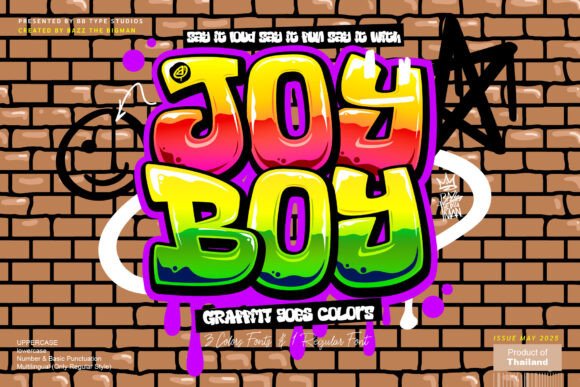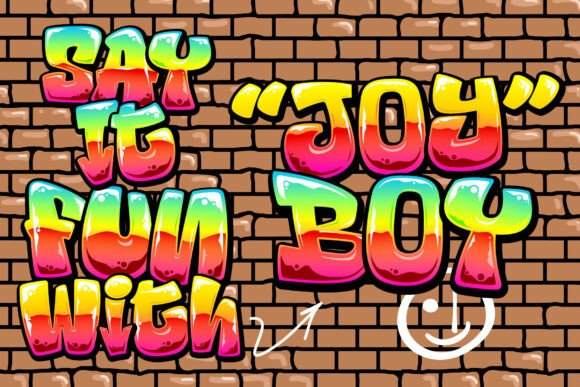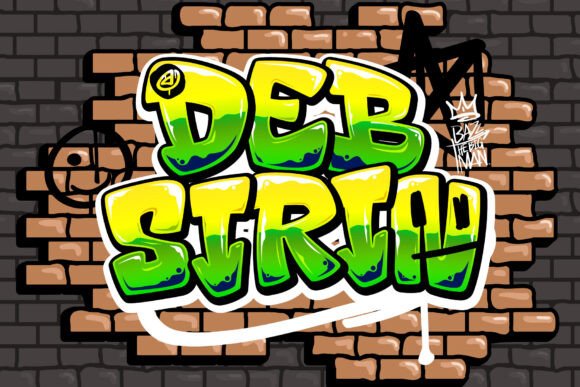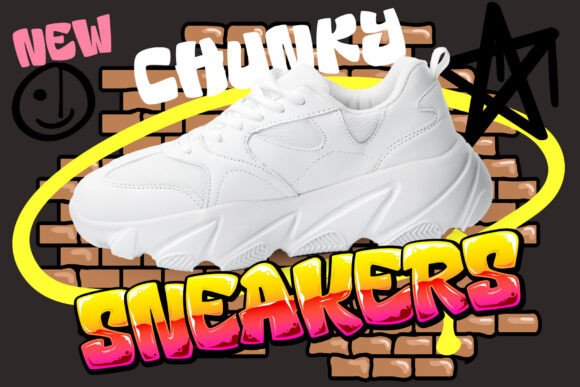
Joy Boy Font: Graffiti Typography for Bold Logo Design
About the Joy Boy Font
Crafted with precision, the Joy Boy Font is ready to bring your ideas to life. Unleash your vibrant creativity through Joy Boy, a daring, street-chic color font that exudes raw attitude. Reflective of graffiti bravura, every letter speaks volume, exploding with riotous hues to instill a new level of urban dynamism. Perfectly suited for logos, posters, music merchandise, or anything that seeks to shatter the monotonous grey. Stand out with Joy Boy and let your work echo with the pulsating rhythm of the streets.
Joy Boy’s bold, rebellious spirit makes it ideal for headlines, posters, and branding projects targeting young, urban audiences. It excels in applications needing high visual impact, such as logos for streetwear brands or event posters. However, its strong character and decorative elements make it unsuitable for body text or UI elements where readability is paramount.
Consider pairing Joy Boy with a clean sans-serif like Open Sans for contrast and improved readability in supporting text. For a more playful aesthetic, a rounded geometric sans-serif such as Futura would also complement its energy. Alternatively, a simple serif like Lora could add a touch of sophistication to balance its raw energy.
The font’s overall personality is undeniably bold and rebellious, yet retains a playful energy. This makes it perfect for brands that want to project a youthful, energetic, and street-smart image.